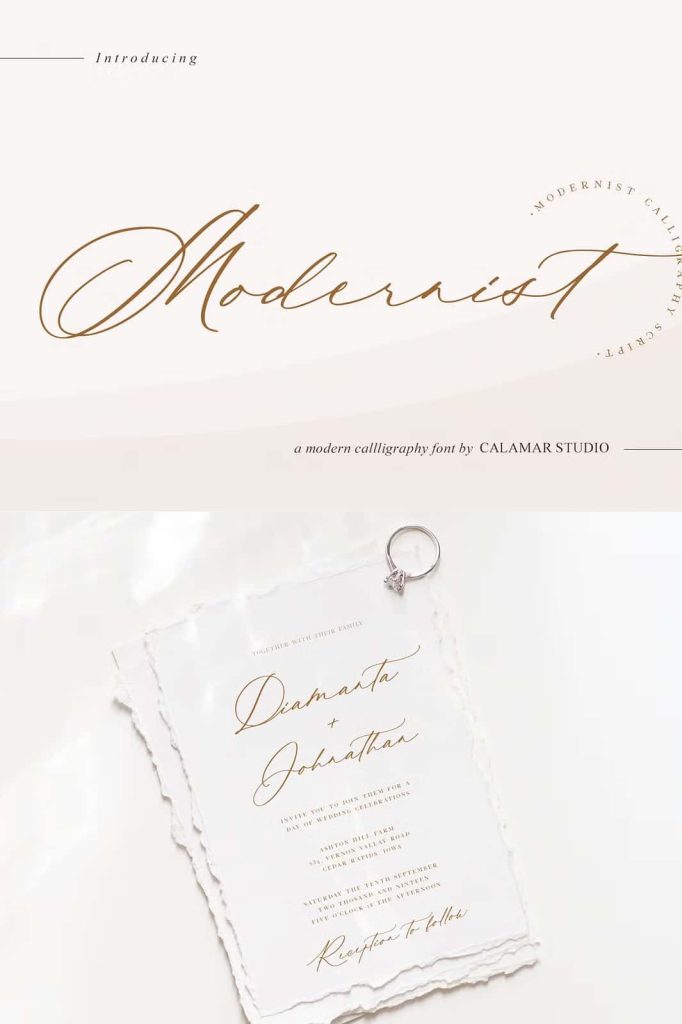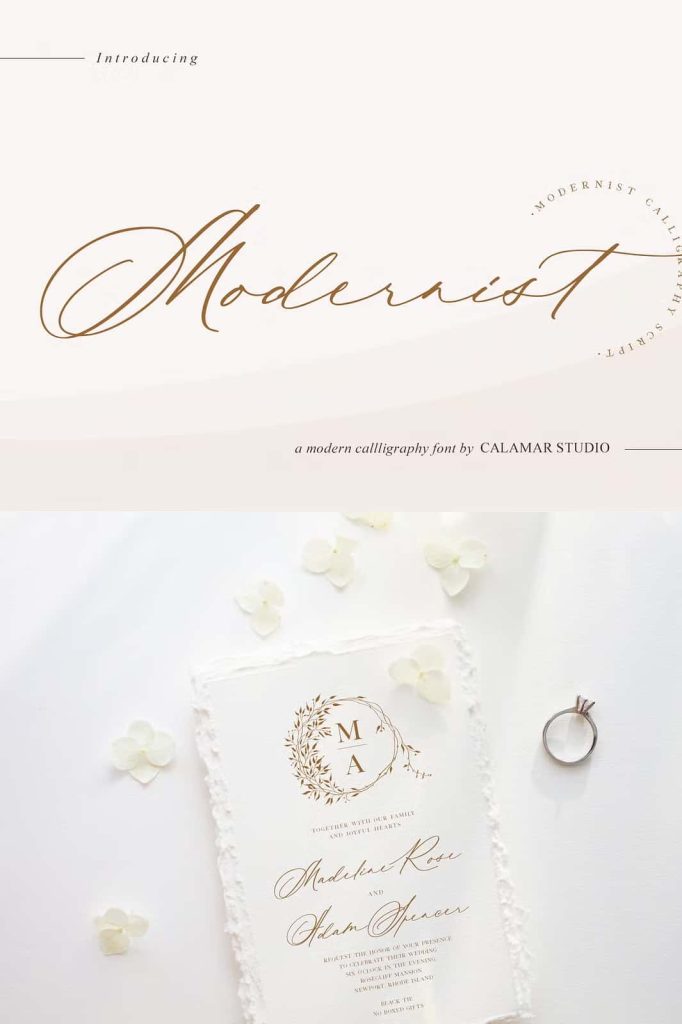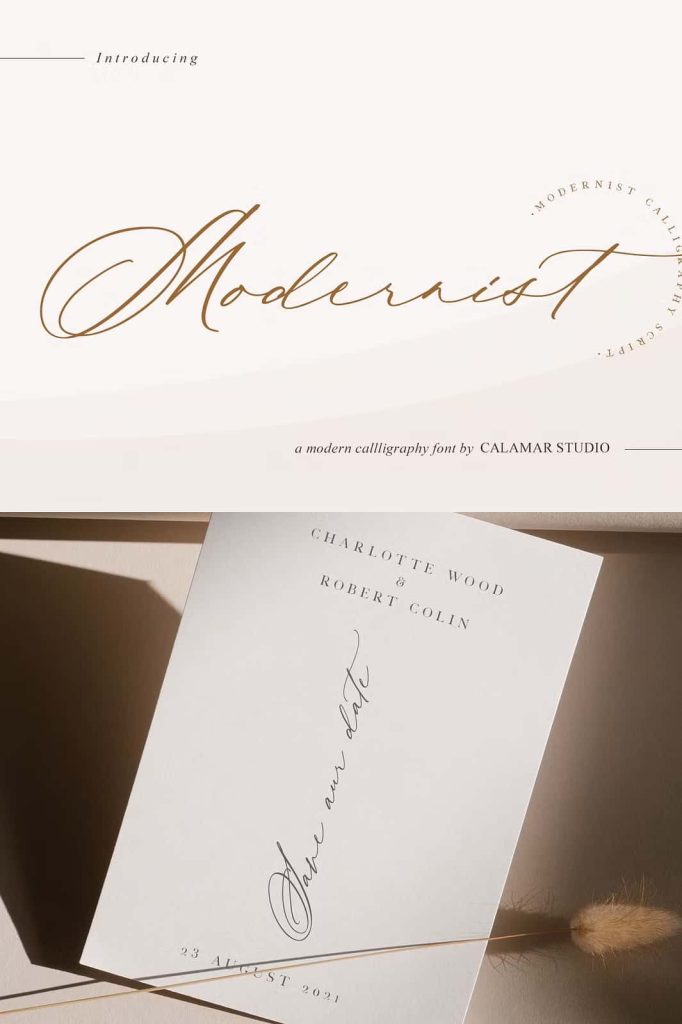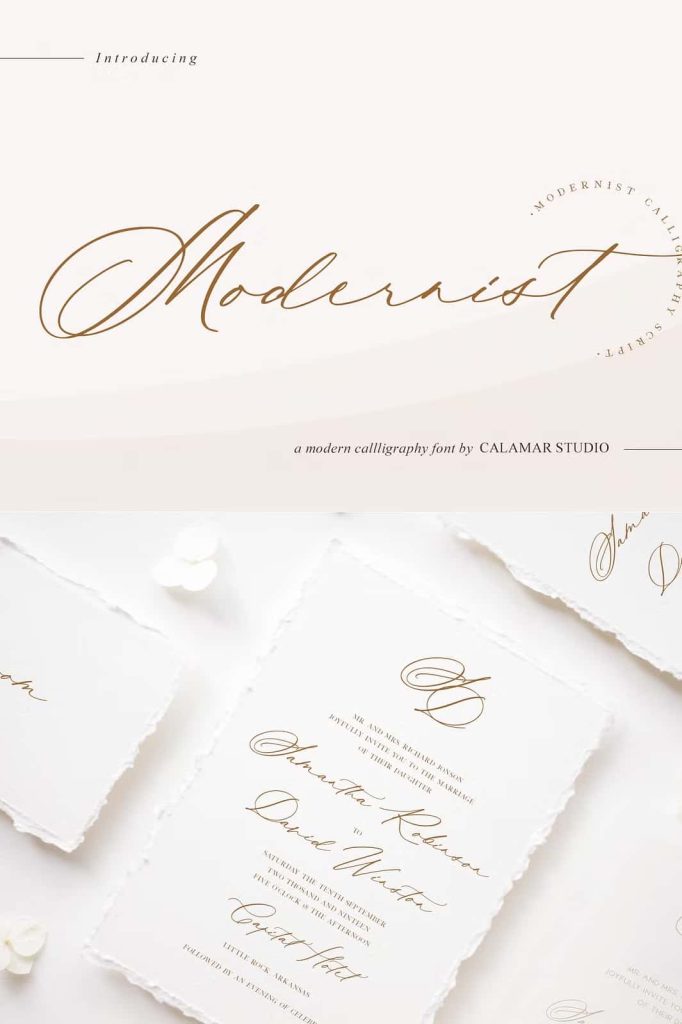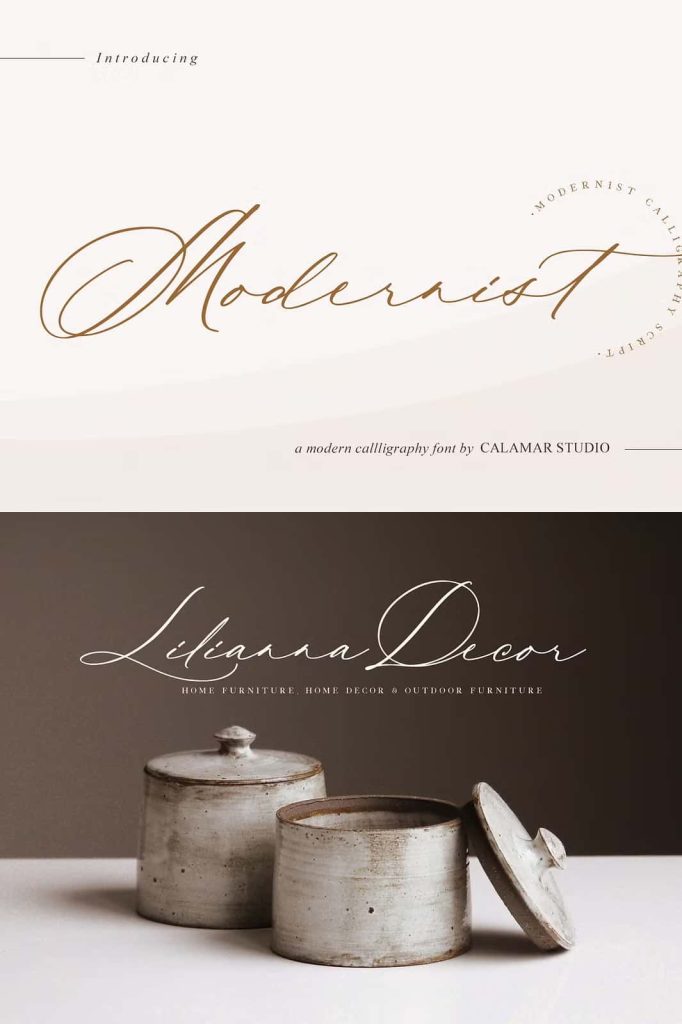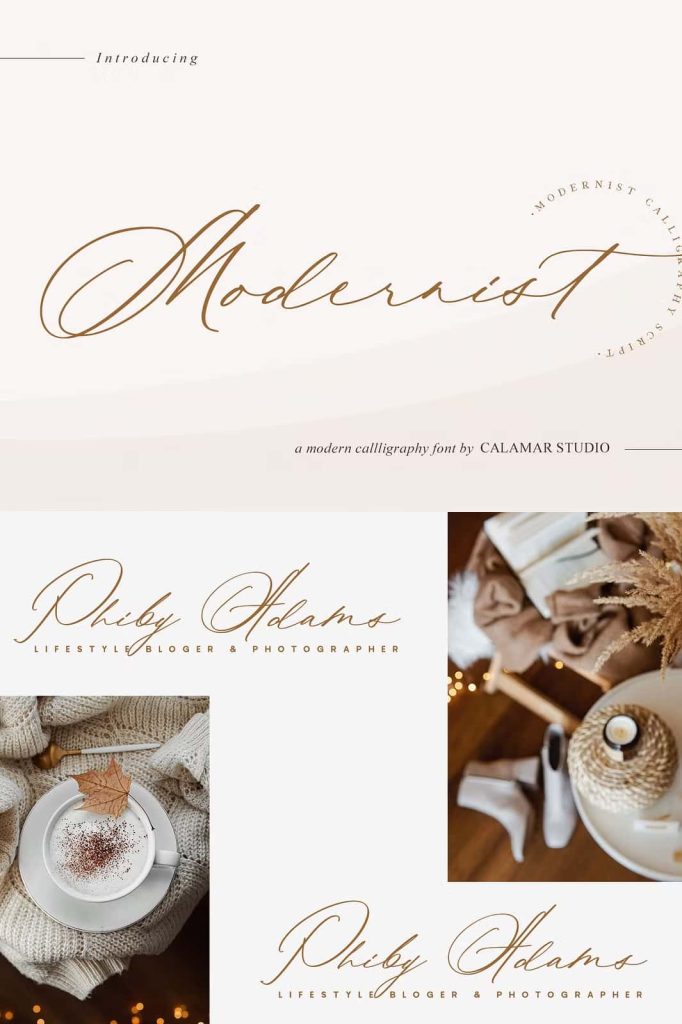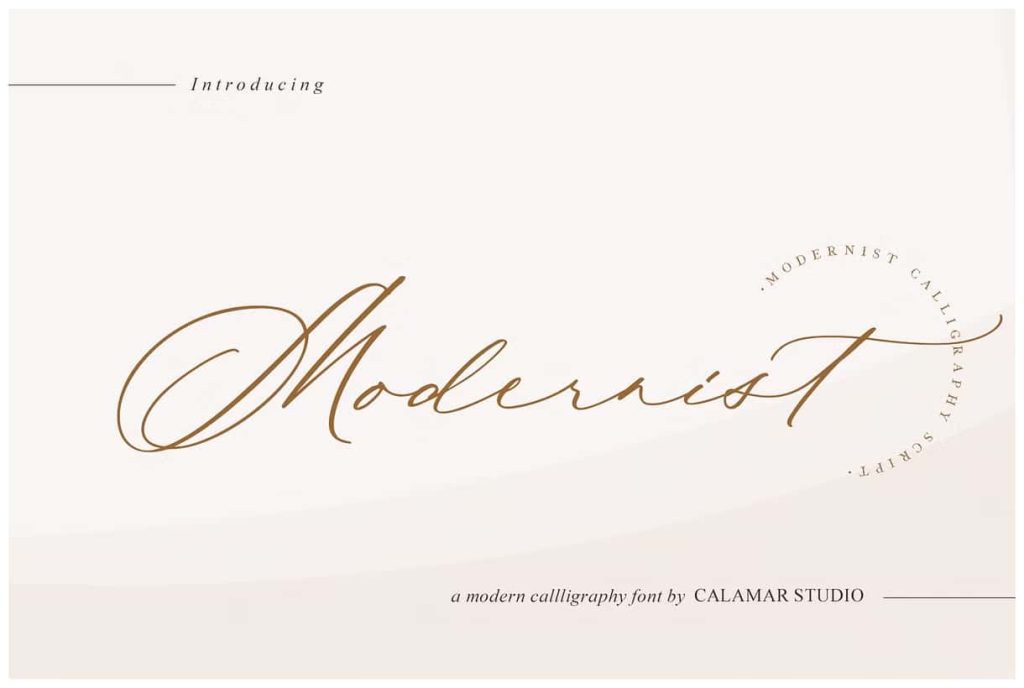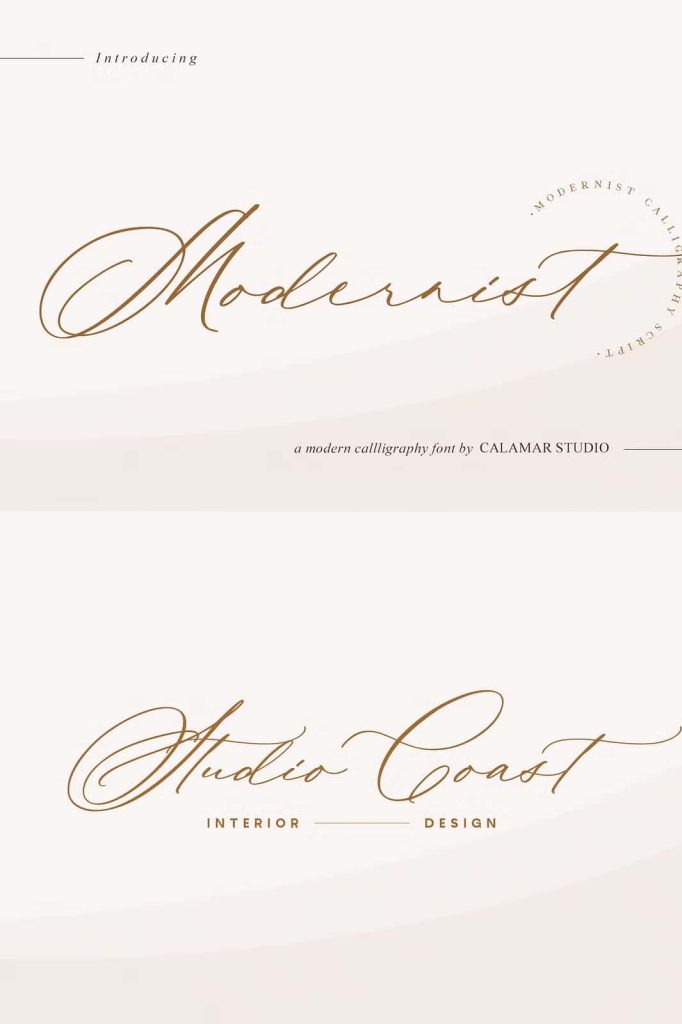
Introducing you my new modern calligraphy font – Modernist that particularly well suited for wedding invitations, save the date cards and feminine branding.